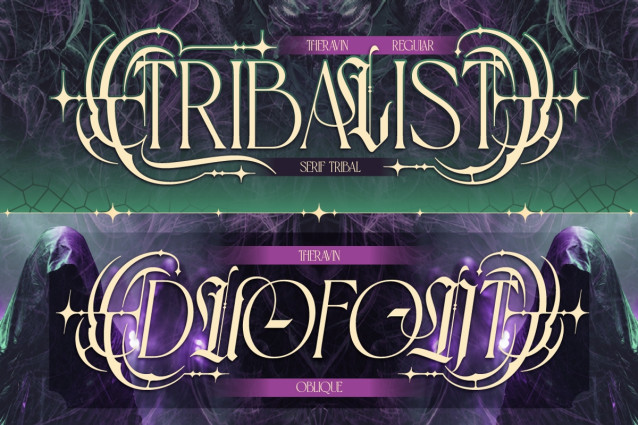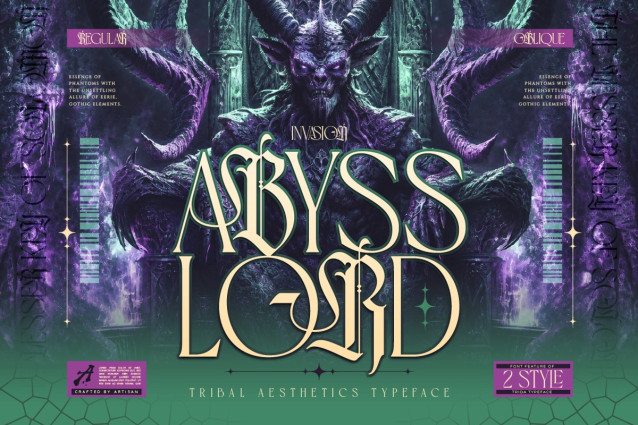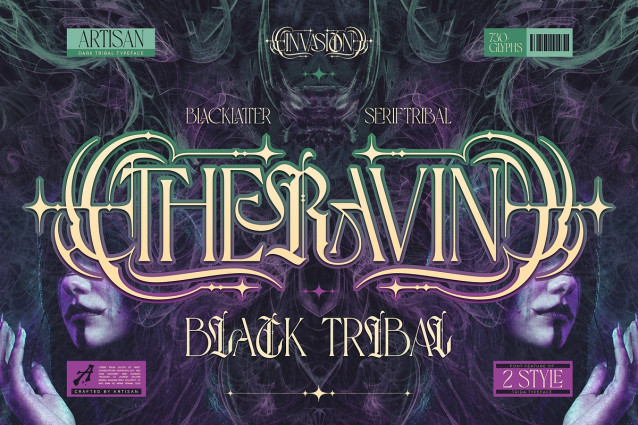
Step into the dark ether with Theravin, a mesmerizing dark tribal display typeface handcrafted by Artisan Studio (Artisan Font). Blending eerie blackletter serifs with dark tribal aesthetics, sharp thorn accents, and celestial star swashes, Theravin delivers an unsettling yet refined gothic allure to your headlines.
Theravin comes fully equipped with 2 font styles—Regular and Oblique. Loaded with extensive OpenType features, including triple ligatures, custom letter combinations, and dark tribal frame alternates, this typeface allows you to craft intricate, hand-lettered logos and dark fantasy graphics effortlessly.
Perfect For:
– Metal, Deathcore & Underground Band Logos
– Dark Fantasy Book Covers, RPG Game Titles & Movie Posters
– Gothic Streetwear, Dark Aesthetic Apparel & Tattoo Merch
– Witchy Branding, Occult Graphics & Halloween Events
– Album Art, Vinyl Covers & Cyberpunk/Gothic Posters